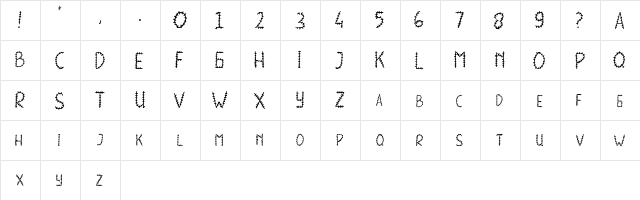
Uneven Regular
Design Context for Uneven Typeface
Uneven is a composed and adaptable typeface that performs quietly and consistently across a wide range of design contexts.